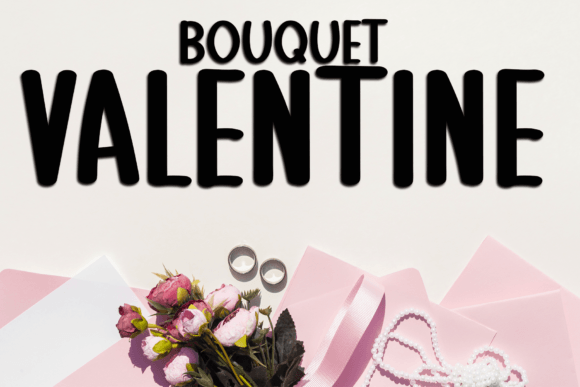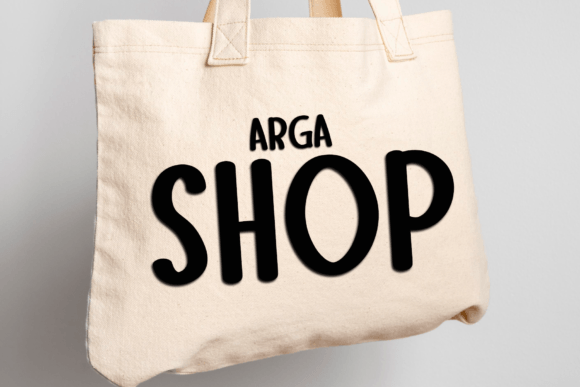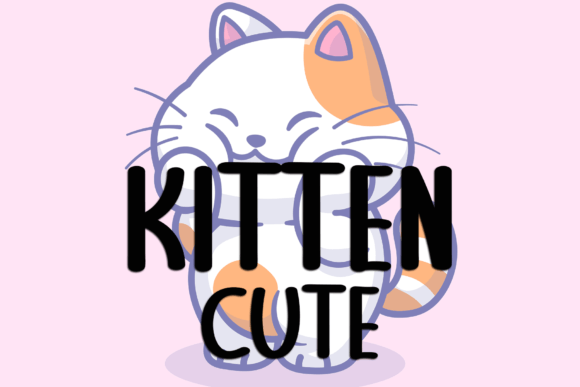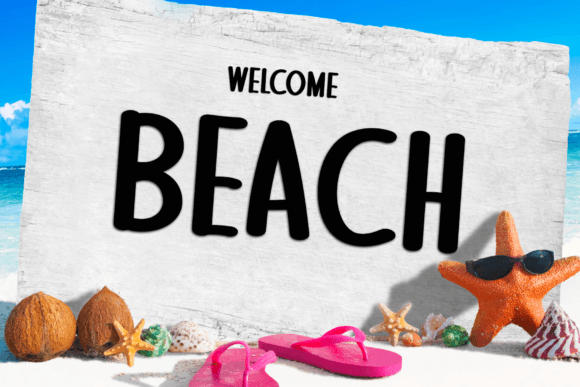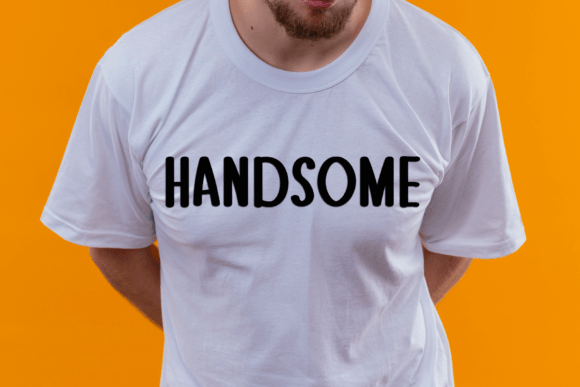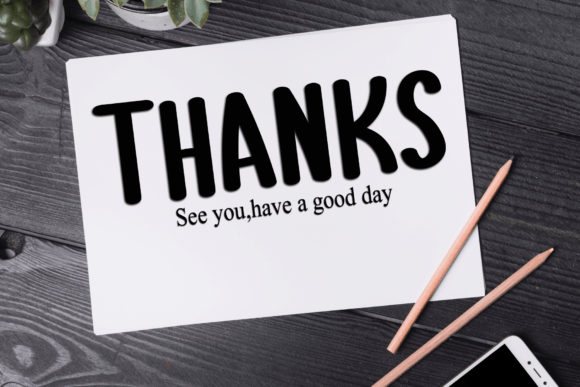
The Magic of Baby Santa Font: Elevate Your Designs
Remember that moment when you finally nailed a design project, and everything came together in perfect harmony? The thrill of creating something from scratch, the satisfaction of bringing an idea to life – it’s what makes being a designer so rewarding. And, often, the right font can be the missing piece that takes your design to the next level.
Enter Baby Santa Font, a delightful, handwritten font that adds a playful touch to any project. With its simple yet cool design, it’s the perfect companion for a wide range of creative endeavors. Whether you’re crafting a festive holiday card, designing a children’s book, or creating a social media campaign, Baby Santa Font is sure to bring a smile to your audience’s faces.
Baby Santa Font Key Features
- Unique Characteristics: This font is designed to resemble a baby’s handwriting, with irregularities and imperfections that give it a playful, whimsical feel. It’s perfect for adding a touch of personality to your designs.
- Number of Glyphs: The Baby Santa Font includes a wide range of glyphs, including uppercase and lowercase letters, numbers, and punctuation marks, making it suitable for use in a variety of contexts.
Design Review: Baby Santa Font
Overall, the Baby Santa Font is a cute and festive font perfect for holiday-themed projects. Here are some of its notable features:
- ✨ The font’s whimsical and playful design makes it ideal for children’s book illustrations, holiday greeting cards, and other festive materials.
- ✨ The font’s bold and bright colors can add a pop of fun to any design project.
- ✨ The font’s customizable options, such as font size and color, make it easy to integrate into various design elements.
- ⚠️ The font may not be suitable for formal or professional projects due to its playful and childlike nature.
- ⚠️ The font’s bold and bright colors may be overwhelming in large quantities or for complex designs.
- ⚠️ The font’s customization options may not be as extensive as some designers would like.
Overall, I think the Baby Santa Font is a great choice for holiday-themed projects that need a touch of whimsy and fun. While it may not be suitable for all design projects, it’s a great option for designers looking to add some festive flair to their work.
Getting the Most Out of Baby Santa Font
To get the most out of Baby Santa Font, consider the following tips:
- Use it sparingly to create a playful and whimsical atmosphere.
- Pair it with other fonts to create a unique and eye-catching design.
- Experiment with different font sizes and colors to add emphasis and interest.
Some common use cases for Baby Santa Font include:
- Children’s birthday invitations and party decorations.
- Christmas and holiday-themed designs.
- Playful and whimsical branding and marketing materials.
Alternatives to Baby Santa Font
Great Vibes is a modern, elegant script font perfect for creating a festive atmosphere. It’s ideal for use in titles, headings, and invitations. Great Vibes has a more refined and sophisticated feel compared to Baby Santa Font, making it suitable for high-end designs.
Comparison: Great Vibes has a more polished appearance and is better suited for formal designs, whereas Baby Santa Font is more playful and casual.